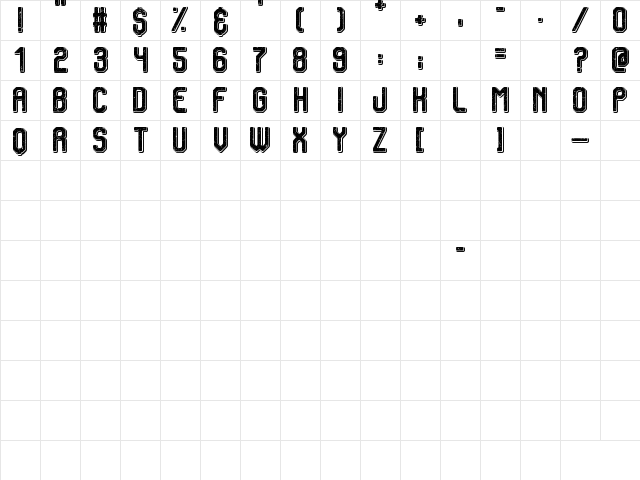
Vintage Warehouse Regular
Design Context for Vintage Warehouse Typeface
Vintage Warehouse has the warm character of retro typography — evoking diners, record sleeves, and the golden age of print advertising.
Font Pairing: Combine Vintage Warehouse with a simple slab or neutral sans — period-accurate companions reinforce the vintage feel without competing for attention.
Pro Tip: Use Vintage Warehouse for headlines and pull quotes rather than body copy — its personality is best appreciated in short, focused bursts.